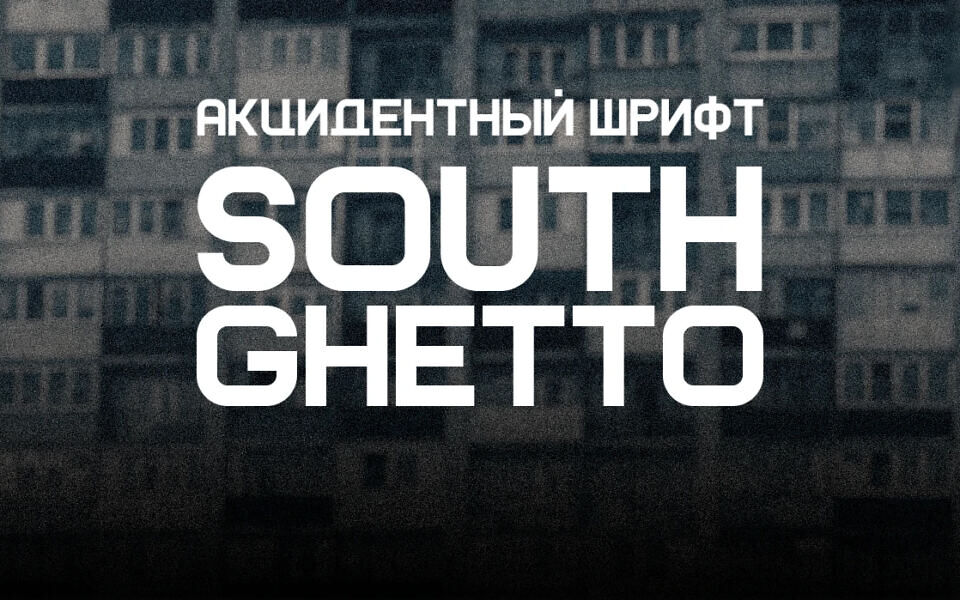
Aug 3, 2025Sans SerifSouth Ghetto Font The SOUTH GHETTO typeface is inspired by the Kupchino district of Saint Petersburg. The concept reflects the district’s architecture, rough concrete, straight lines, and a feeling of structural simplicity. Font DetailsDesigned by: S. ShebestovaWebsiteLicense: Free for commercial use Download South Ghetto FontFile size: 8.02 KBCreated: August 3, 2025Updated: August 3, 2025 Download Explore similar fonts Pliant Font Family Ticdar Font Family Hirro Sans Font Family Propilen Font Family Strichpunkt Sans Font Family Muerta Font Family # Basic# Bold# Contemporary# Cyrillic# Display# Geometric# Headline# Modern# Wide